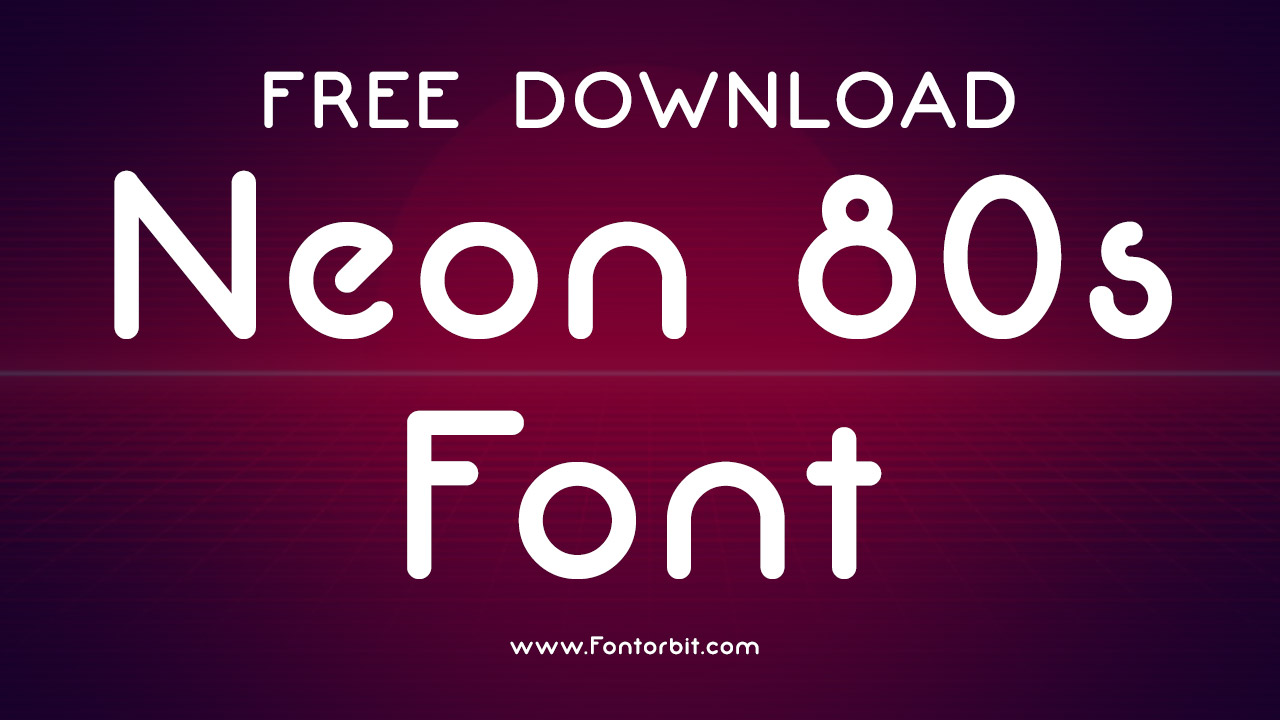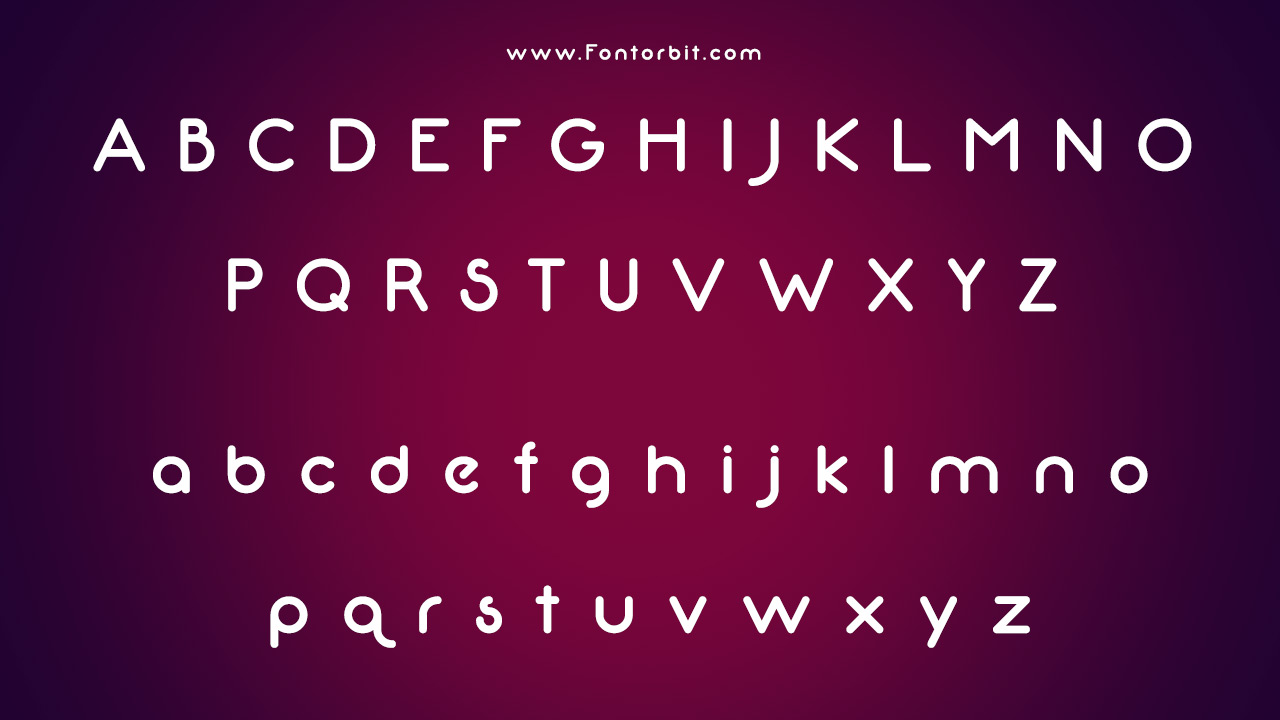
Neon 80s Font is a vibrant display typeface created by Essqué Productions. This font captures the essence of neon lights from the 1980s, making it perfect for design projects that aim to evoke a sense of nostalgia and modern flair. With its sleek, rounded style, Neon 80s is versatile for various applications, including events, branding, and stylish graphics.
Neon 80s Font belongs to the category of display typefaces, characterized by its retro yet contemporary aesthetic. It embodies a playful nod to the digital era of the 1980s while maintaining a modern appeal. The Neon 80s font family includes:
Neon 80s Font is ideal for adding a retro touch to a variety of projects. Its distinctive design makes it suitable for:
- Retro-themed events
- Logo design
- Promotional materials
- Health and cosmetic lines
- Stylish text overlays for images
- Merchandise graphics
The Neon 80s Font Found In Use
Neon 80s Font is widely used in creative projects that require a lively and nostalgic vibe. It excels in applications where a sleek, modern typeface is desired, particularly in branding and event promotions. The font is available for free for personal use, with a commercial version that includes extended character sets.
Neon 80s Font is a captivating display typeface that brings a fresh and vibrant edge to any creative project. Its retro charm makes it perfect for headlines, branding, and various design applications. Whether for personal or commercial use, Neon 80s is an excellent choice for adding a nostalgic flair to your work.
1.What Are The Characteristics Of Neon 80s Font?
Neon 80s Font features a sleek, rounded design that evokes the vibrant feel of neon lights, making it perfect for retro-themed designs.
2.What Considerations Should I Take When Using Neon 80s Font In Branding?
Ensure the font aligns with your brand’s playful and modern identity. It’s ideal for brands looking to create a nostalgic vibe but may not fit traditional aesthetics.
3.What Are The Limitations Of Using Neon 80s Font In Design?
Its playful, neon-inspired design may not convey seriousness or formality, making it less suitable for traditional or corporate contexts.
4.What Are The Differences Between Neon 80s Font And Other Display Fonts?
Neon 80s Font features a distinctive, rounded, modern style with a nostalgic touch, while other display fonts may incorporate varied artistic elements or more ornate designs.
5.What Do Users Typically Seek In Neon 80s Font?
Users look for a vibrant, versatile typeface that captures the essence of the 1980s for a variety of design projects, from branding to promotional graphics.
6.How To Create A Glowing Effect With Neon 80s Font?
Using graphic design software, apply a glow effect to enhance the font’s neon-like appearance, making it pop against darker backgrounds.
7.What Styles Are Popular In Neon 80s Fonts?
Vibrant, rounded, and playful styles are popular. They embody the retro aesthetic while offering modern versatility suitable for various design applications.